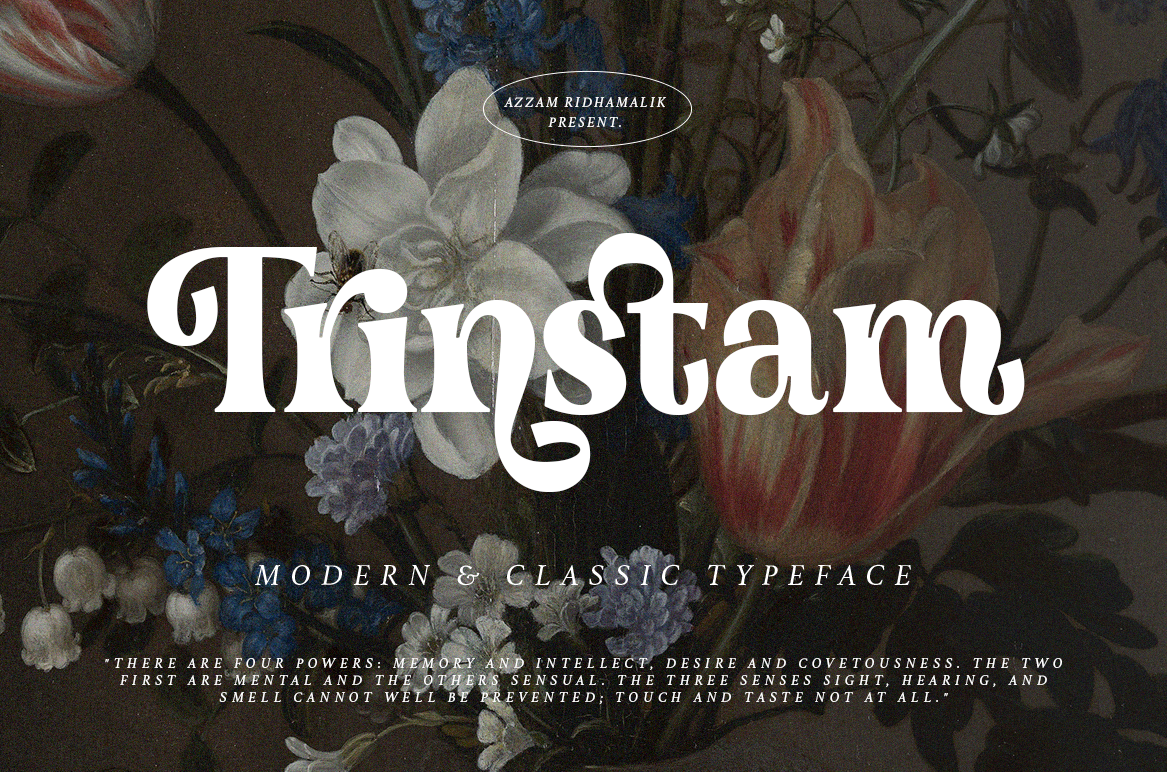
Trinstam - Modern Classic Font Font
About Trinstam - Modern Classic Font
Introducing Trinstam, a fancy modern and classic serif typeface with a clear and bold look. It’s a very versatile font that works great in large and small sizes. Perfect for editorial projects, Logo design, Clothing Branding, product packaging, magazine headers, or simply as a stylish text overlay to any background image.